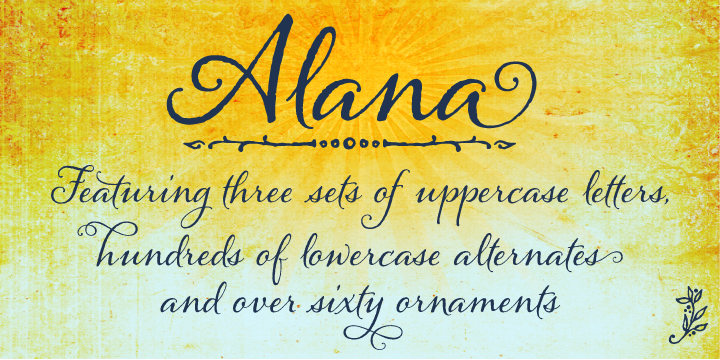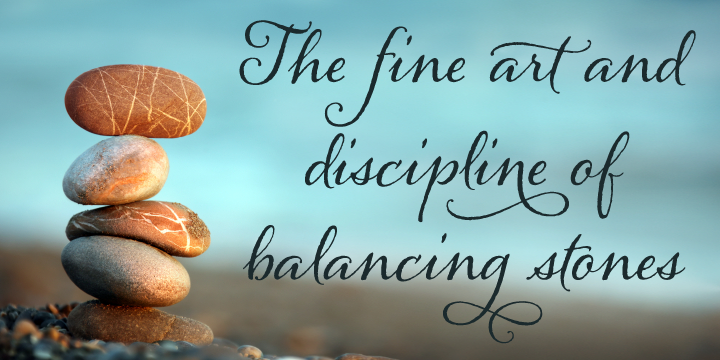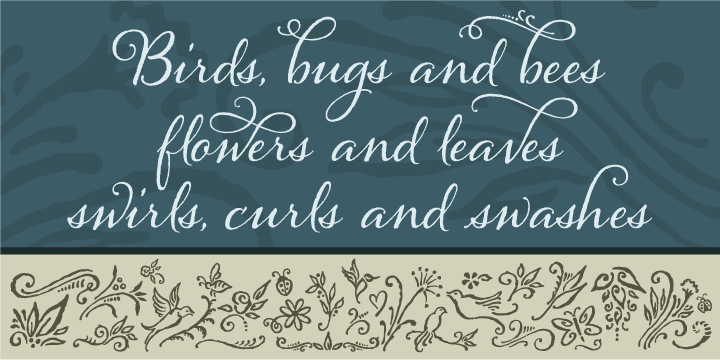
Alana is a dingbat, script and modern calligraphy font family. This typeface has three styles and was published by Laura Worthington.
Alana is a natural looking, semi-connected script face. Based on hand lettering, friendly and unique with its ability to transition from casual to formal, it holds its original hand drawn, slightly rough look and feel. It features 341 alternates which include two additional uppercase letter sets and hundreds of alternate lowercase letters making it very versatile.
62 whimsical ornaments, designed especially to coordinate with Alana’s style are offered separately and are included in Alana plus Ornaments.